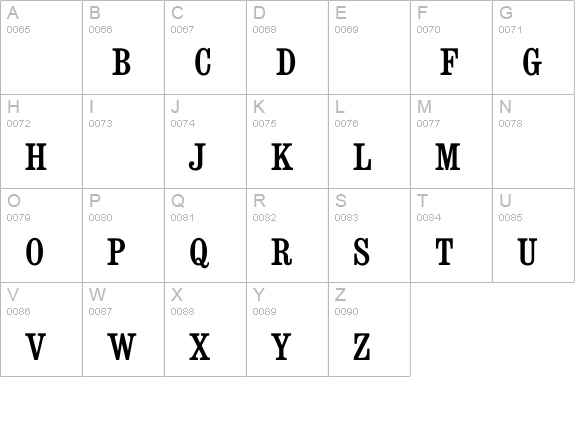
ConsortMediumCondensed Font Details
ConsortMediumCondensed font is a sleek and modern typeface that exudes elegance and sophistication. Its condensed design makes it perfect for creating eye-catching headlines, titles, and branding materials. With its clean lines and balanced proportions, ConsortMediumCondensed font is versatile and can be used for a wide range of design projects. The best part? ConsortMediumCondensed font is available for free download at FontsMarket.com. This means you can easily access this stylish font to elevate your designs without any cost. Whether you're working on a print ad, website design, or any other creative project, ConsortMediumCondensed font is sure to make a bold statement and leave a lasting impression. Don't miss out on this fantastic opportunity to enhance your typography collection with this beautiful and versatile font. Download ConsortMediumCondensed font today and take your designs to the next level!